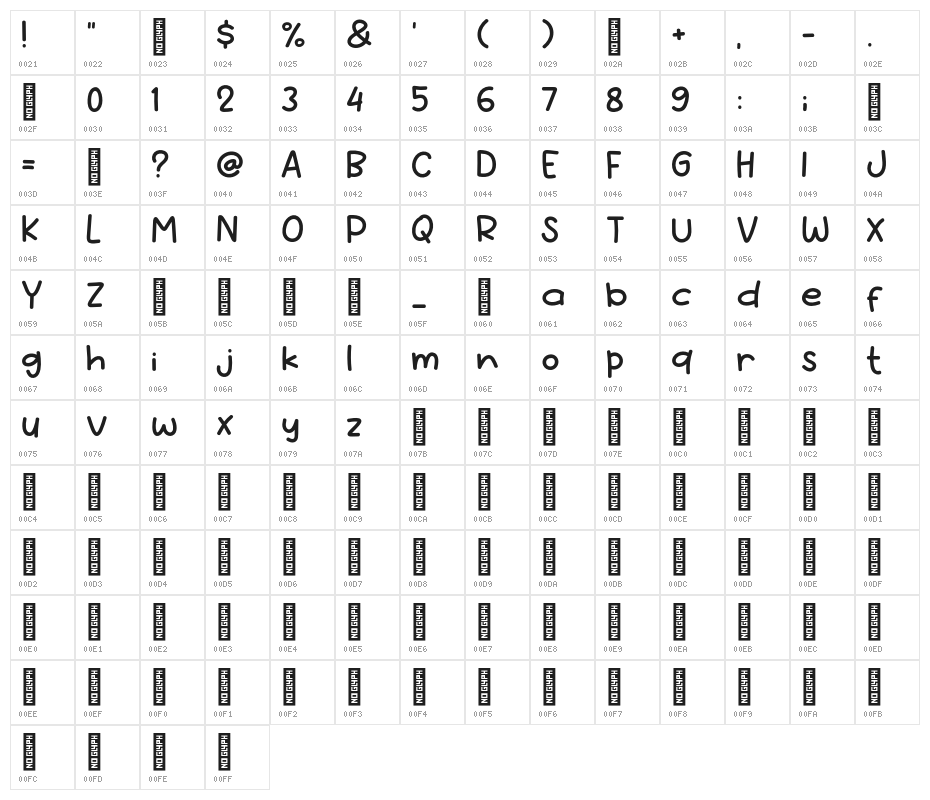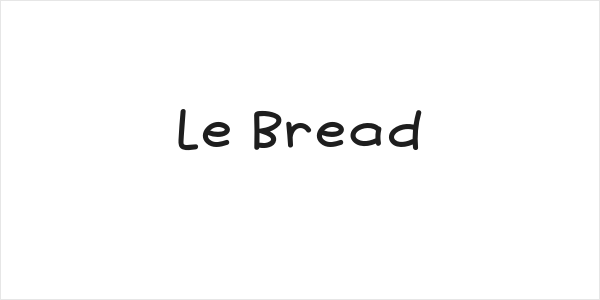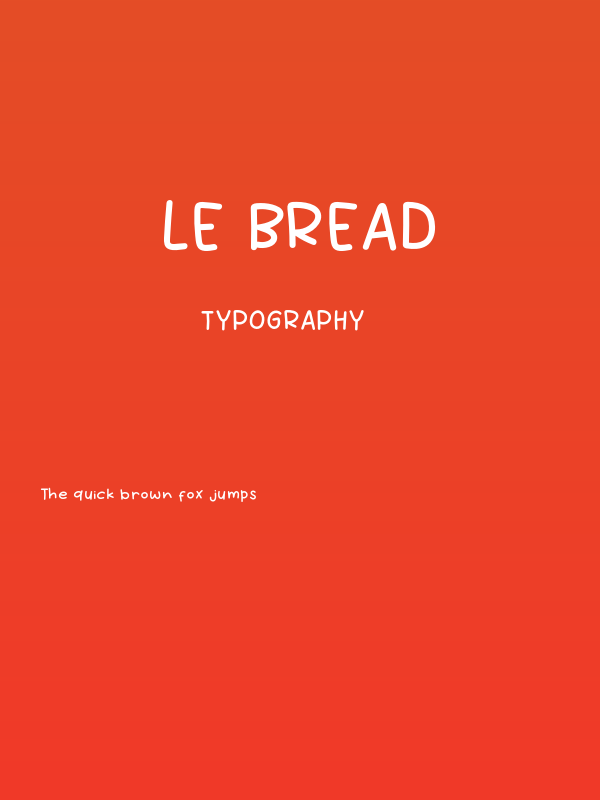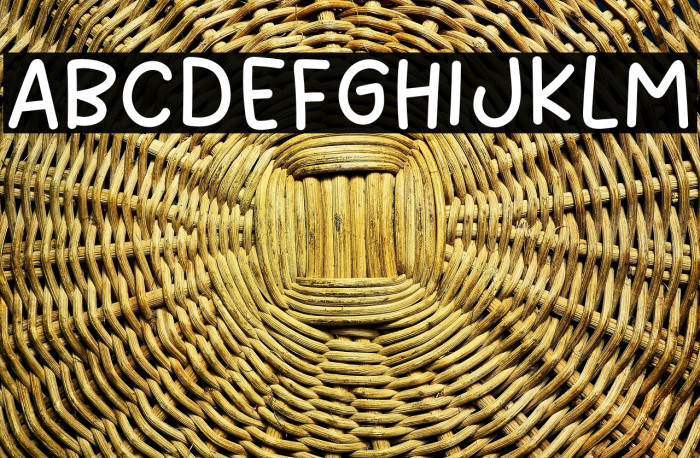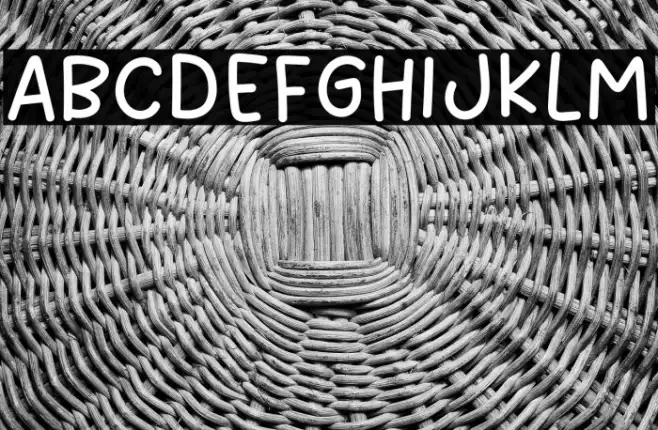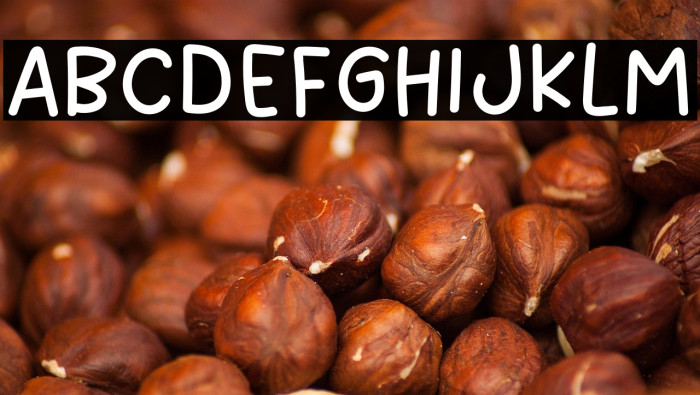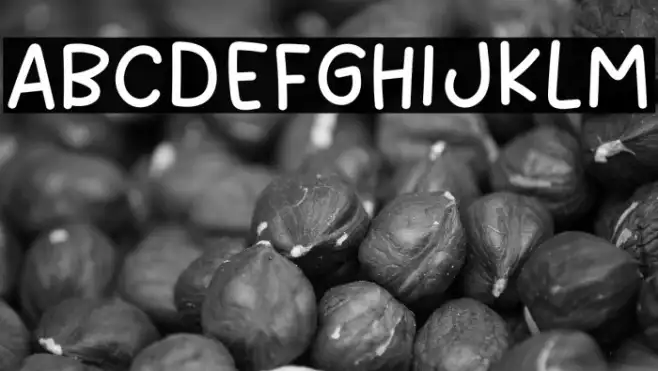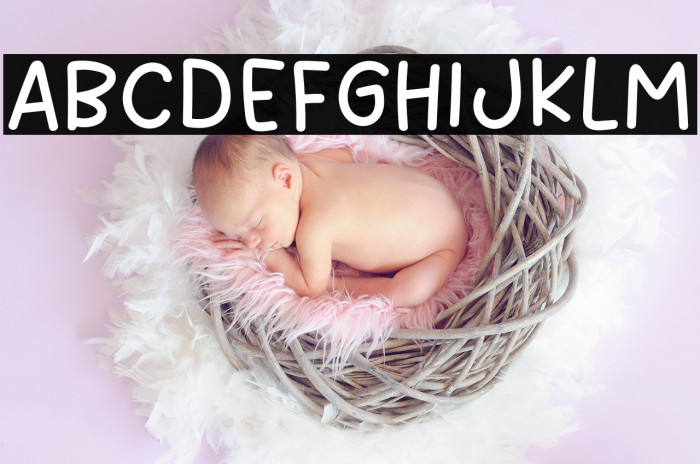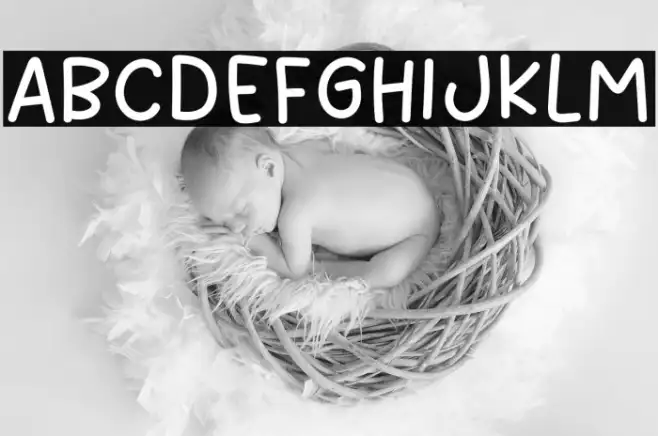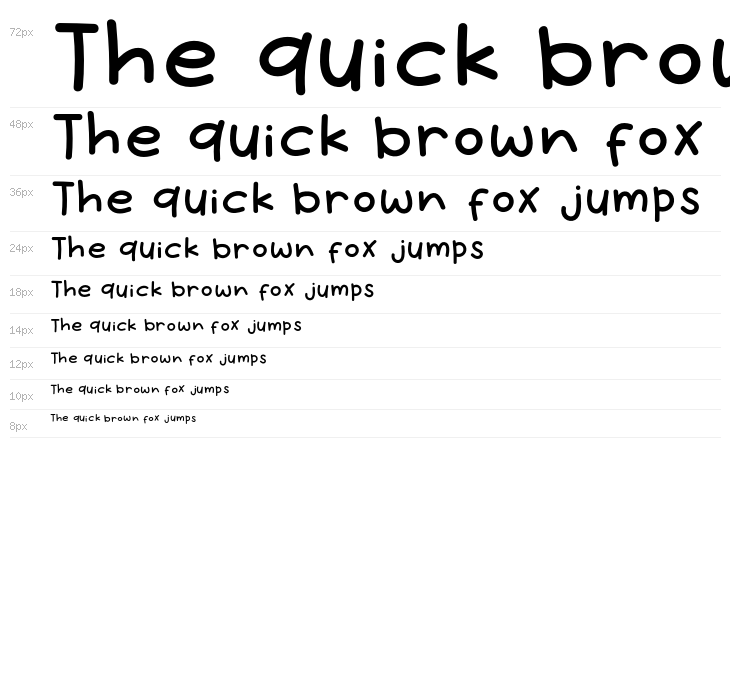
Le Bread Font
Le Bread Description
This font features a playful and casual handwritten style, characterized by its rounded and smooth letterforms. The uppercase and lowercase letters maintain a consistent flow, giving it a friendly and approachable appearance. The numerals are clear and easy to read, matching the overall aesthetic of the alphabet. Special characters are included, maintaining the same whimsical style. This font is perfect for projects that require a personal touch, such as greeting cards, children's books, or playful branding.
| Use Case | Headlines, Informal text, Branding |
| Proposed Projects | Ideal for greeting cards, children's books, playful branding, and personal projects. |